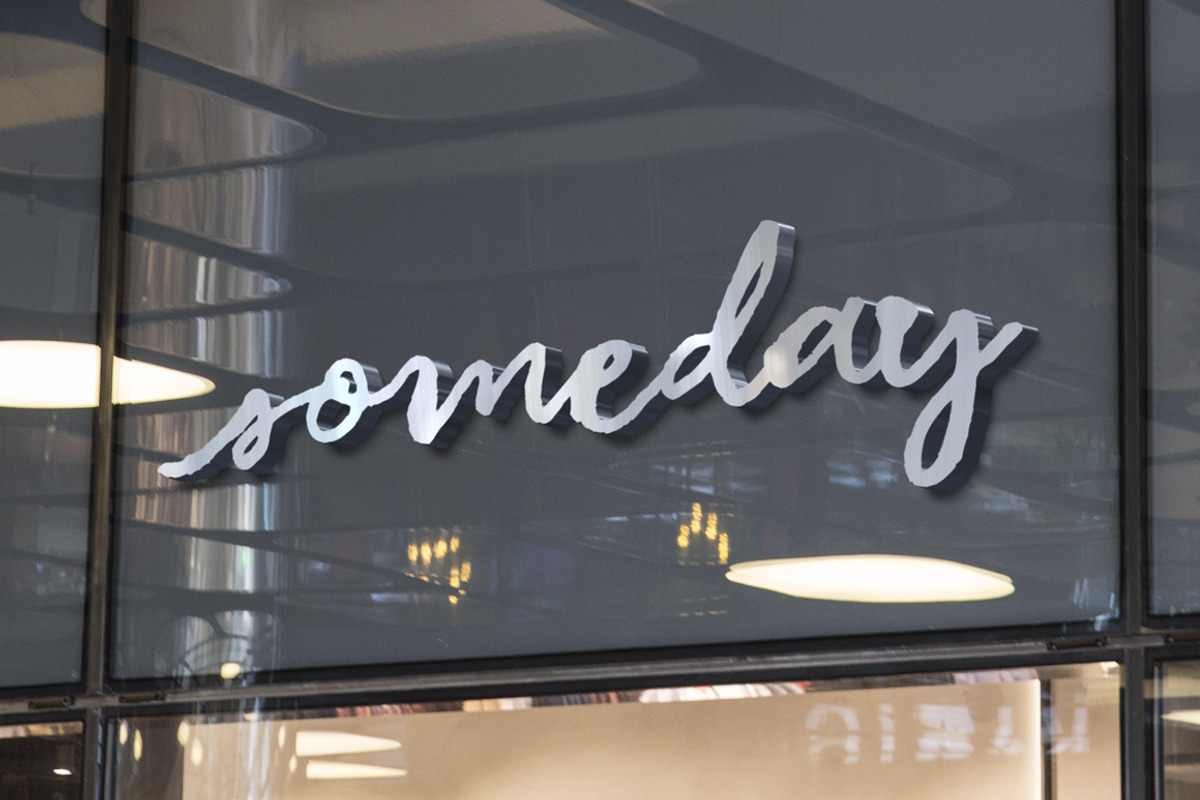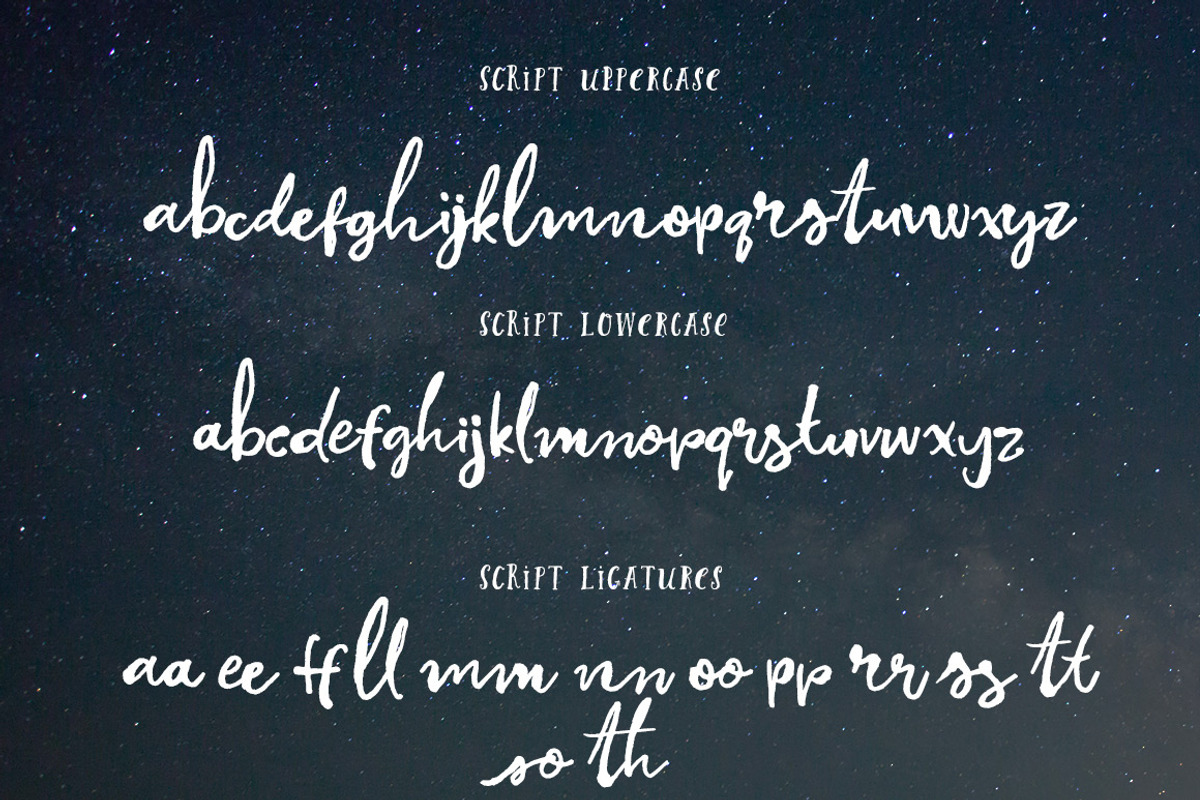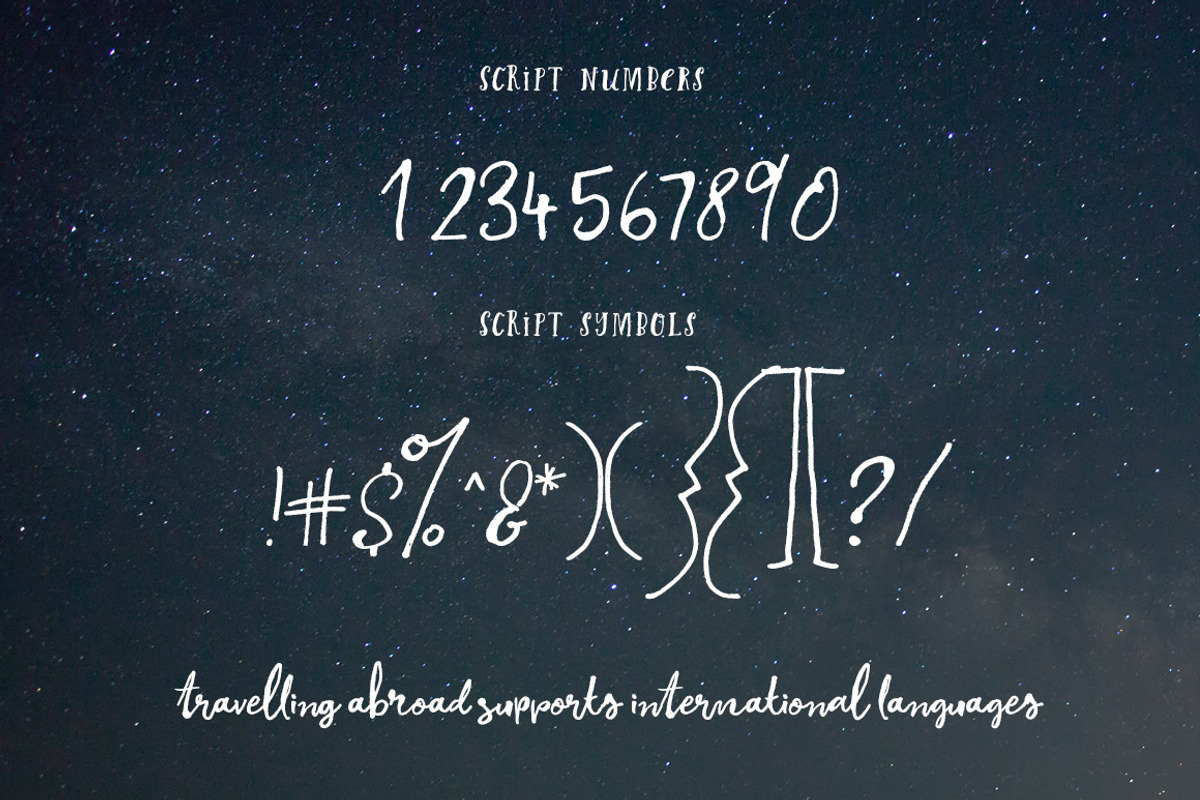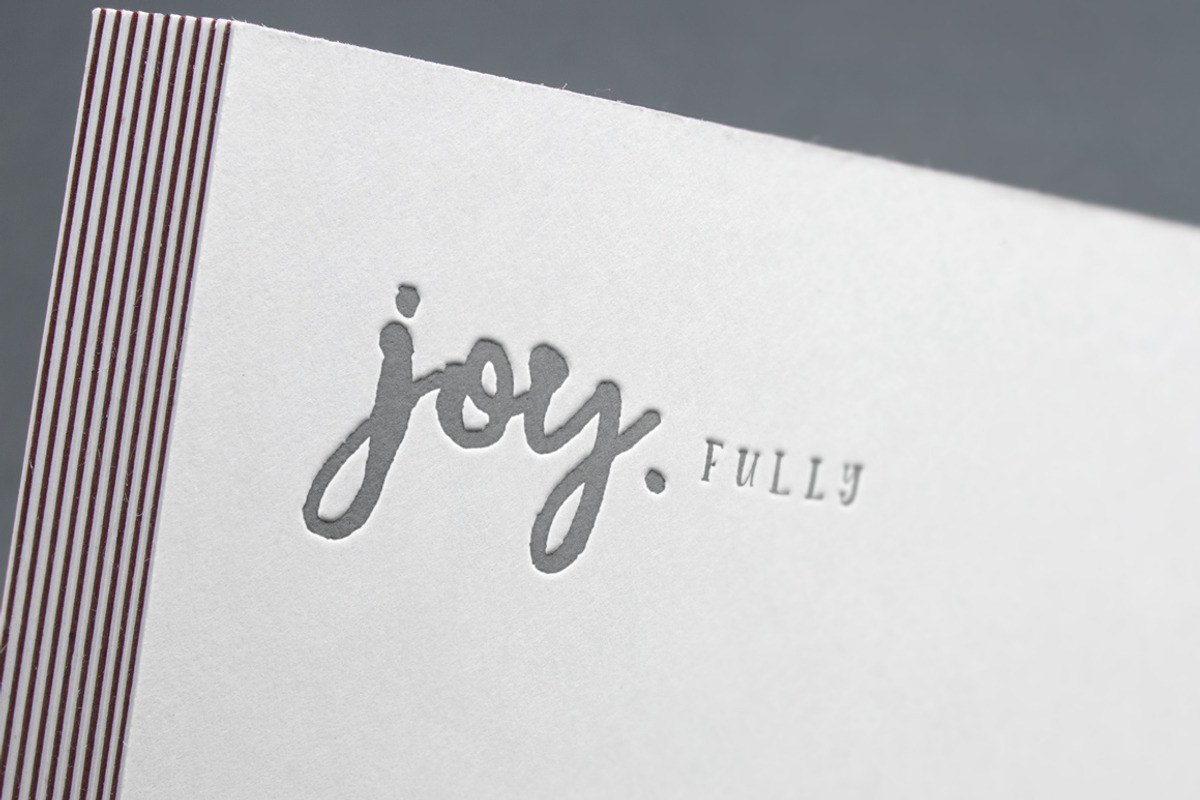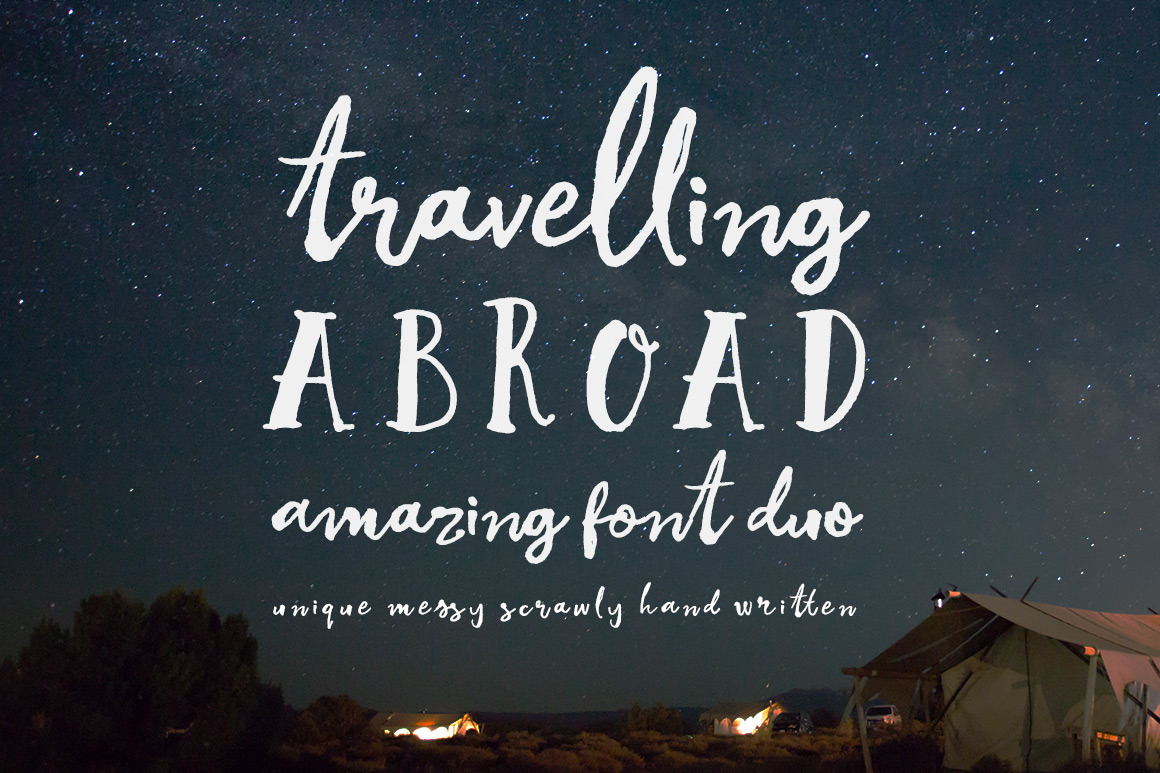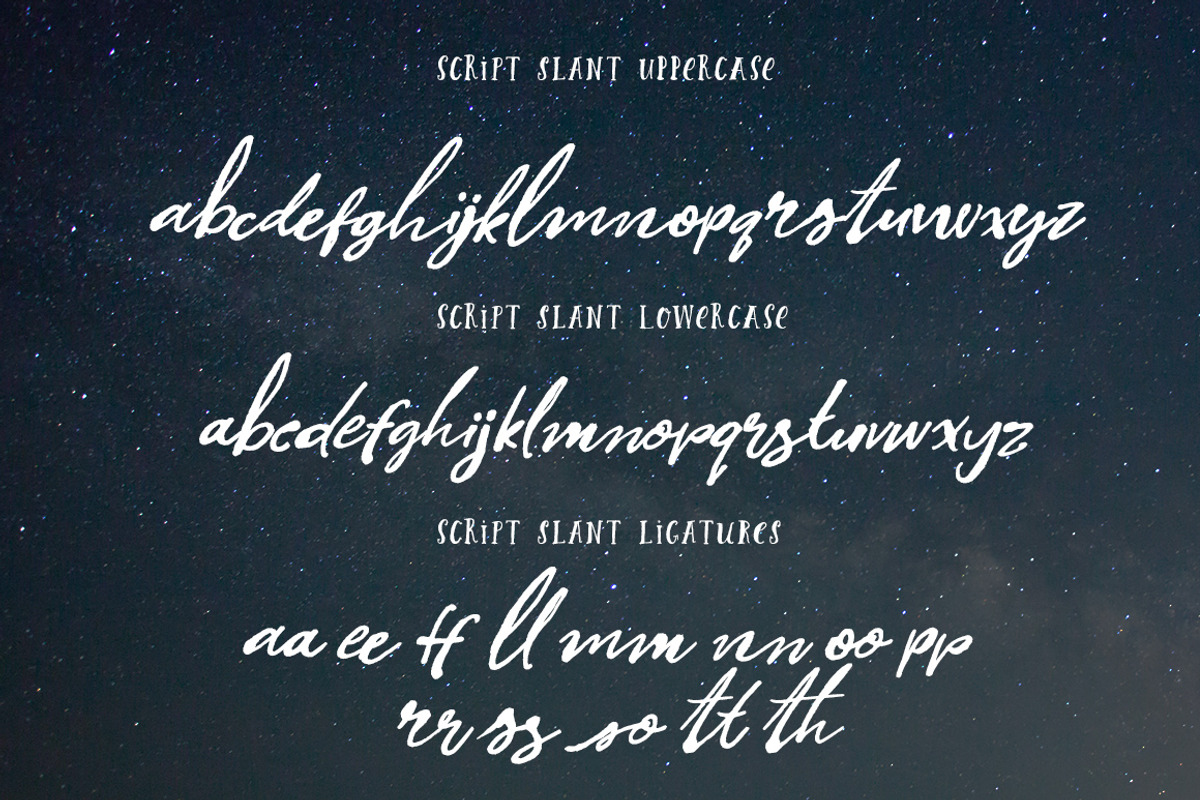
Travelling Abroad Font Duo
Introducing the newest font duo Travelling Abroad
Travelling Abroad is a duo of 2 awesome unique hand drawn fonts, one all caps and the other lowercase script.
The lowercase set comes in standard and slant.
They both have 2 full sets of characters, plus ligatures for double letters, and a full set of numbers and symbols.
Travelling Abroad supports international languages.